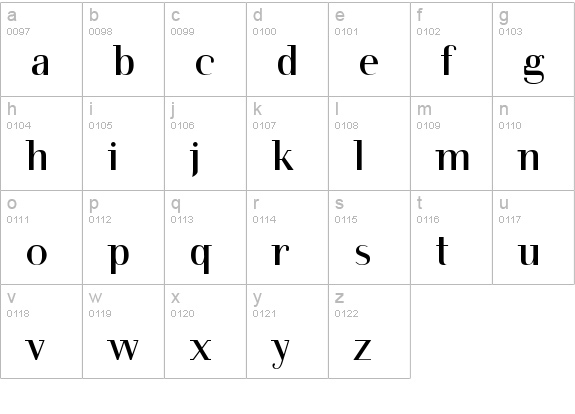
Walbottom Font Details
Introducing Walbottom, a captivating and versatile font that exudes elegance and charm. With its graceful curves and refined strokes, Walbottom is designed to leave a lasting impression on any project. Whether you're creating a logo, designing a website, or crafting a stunning invitation, this font is sure to elevate your work to new heights. What sets Walbottom apart is not only its impeccable design, but also its accessibility. This font is freely available to download at FontsMarket.com, where creativity knows no bounds. With just a few clicks, you can unleash the full potential of Walbottom and infuse your projects with a touch of sophistication. Walbottom's versatility knows no bounds. Its carefully crafted letterforms lend themselves perfectly to both formal and informal contexts. Whether you're aiming for a professional and polished look or a more casual and approachable feel, Walbottom effortlessly adapts to suit your needs. Each character in Walbottom is meticulously handcrafted to ensure utmost precision and readability. The subtle details and harmonious proportions make it a joy to read, captivating your audience with every word. From headlines to body text, Walbottom brings clarity and elegance to any typographic composition. With a wide range of weights and styles, Walbottom offers endless possibilities for creative expression. From the thin and delicate Light weight to the bold and commanding Black weight, this font allows you to truly make a statement and stand out from the crowd. Enhance your design projects with Walbottom, a font that not only offers exceptional aesthetics but is also freely available to download at FontsMarket.com. Take advantage of this opportunity to elevate your work and unleash your creativity like never before. Experience the beauty and versatility of Walbottom today.